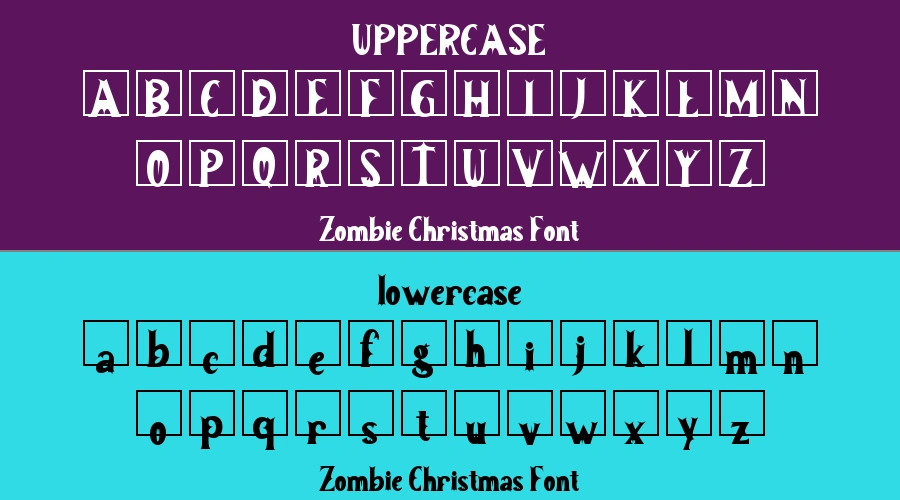
About Zombie Christmas Font
Zombie Christmas Font stands out for its distinctive combination of rounded apexes and aesthetic balance. Ideal for environmental graphics, it provides the flexibility and visual authority that professional projects demand. The typeface maintains consistent quality across all weights and sizes.
Key features include refined elegant spacing and practical contextual ligatures, enhancing typographic expression. In creative titles applications, Zombie Christmas Font demonstrates exceptional multi-language support. The loop structure and market positioning contribute to its distinctive character and professional appeal.